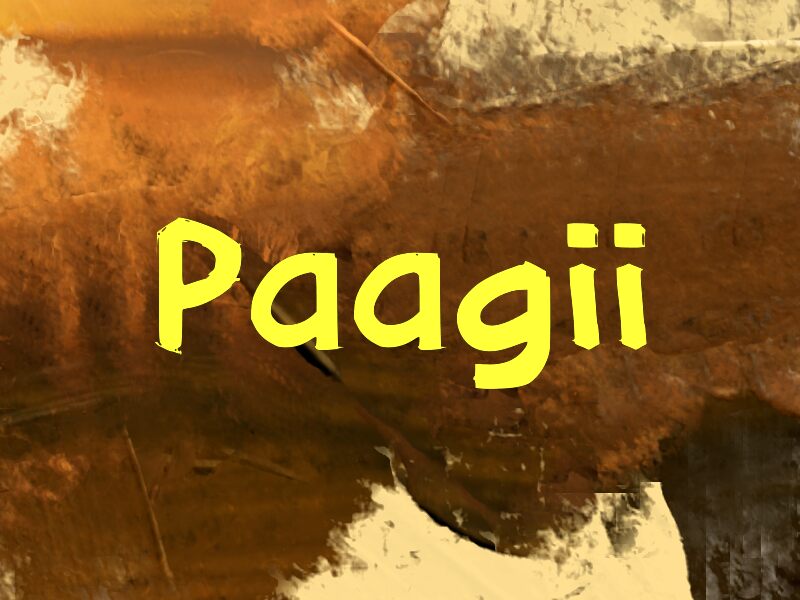
Paagii font by wep is a free brush font for creating eye-catching casual designs. This informal typeface is characterized by relaxed characters with balanced heights, widths, round curves, and smooth flow. If you want your design to convey a cheerful, breezy mood, Paagii has your back.
Specialized in anything creative and breezy, Paagii is ideal for targeted personal branding projects as well as businesses selling artistic products. The font looks stunning on product packaging, merchandise, and apparel brandings, especially in beautiful logo designs. Use it in invitations, greeting cards, and multiple personal designs.
Paagii is a stylish and modern free font that enhances your design projects. Whether you're creating graphics, posters, or websites, this font adds a unique and appealing touch. With its clean lines and contemporary style, Paagii is perfect for both headlines and body text.